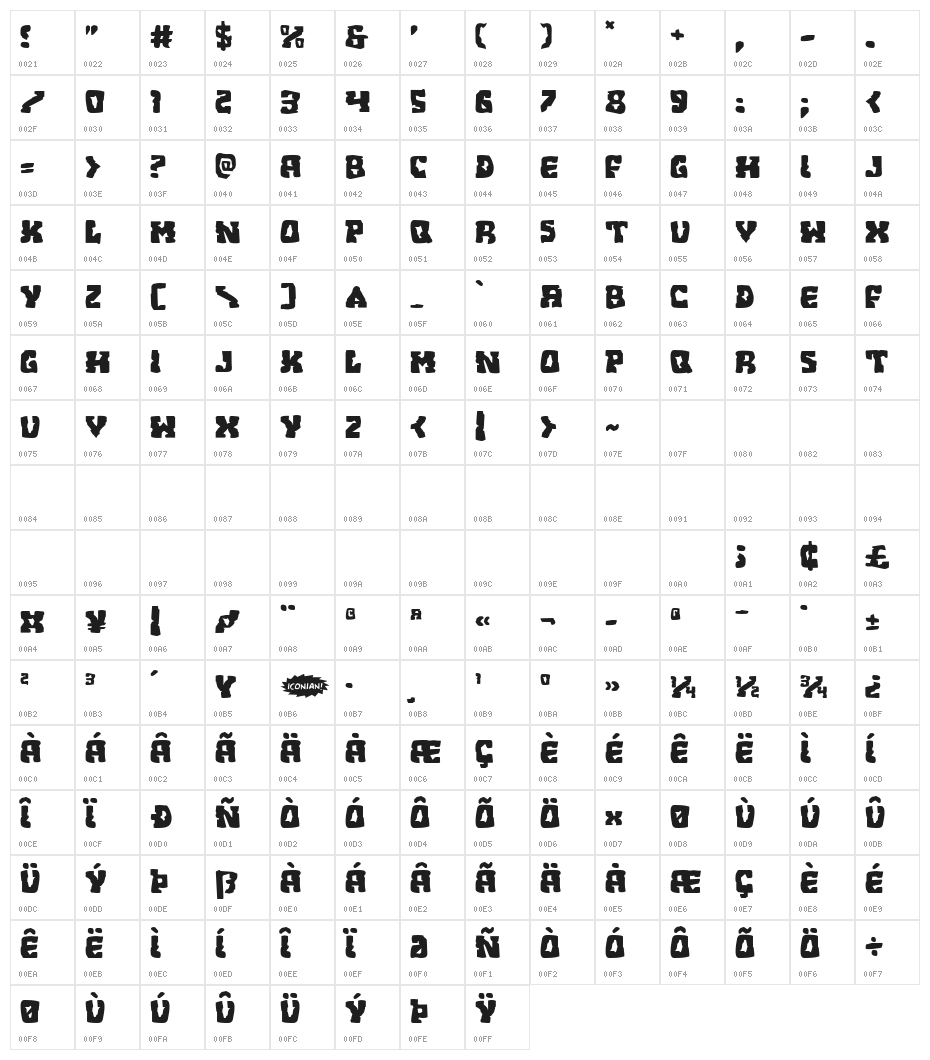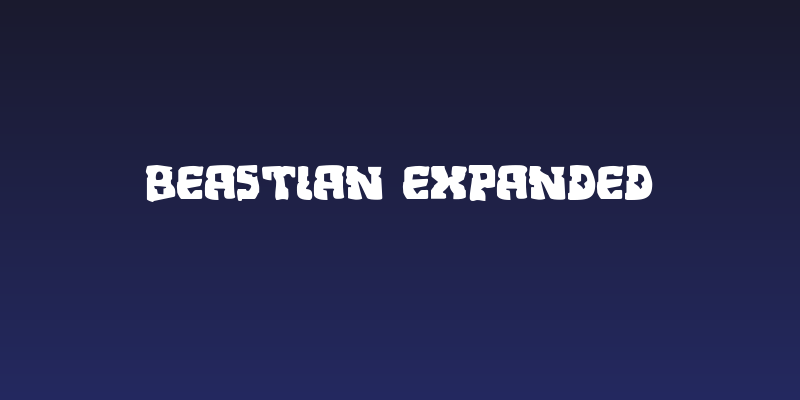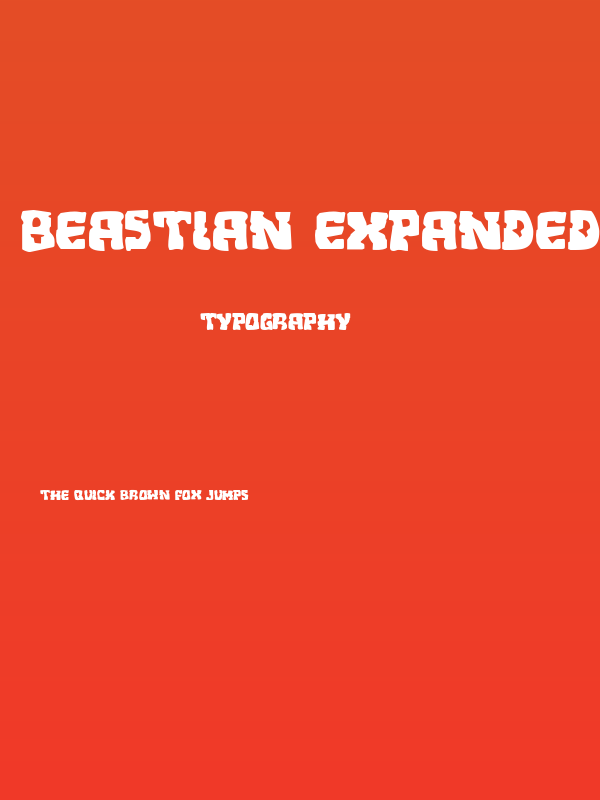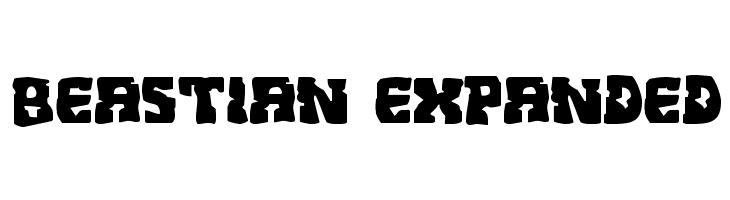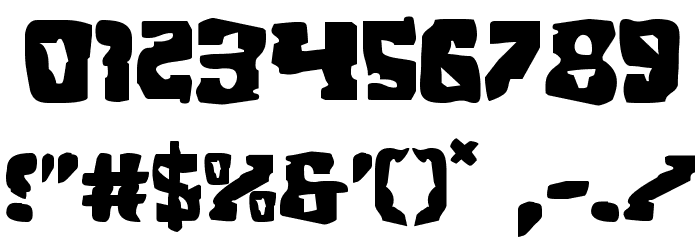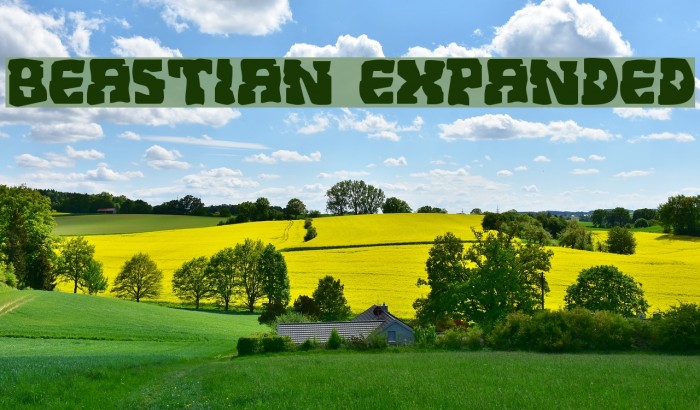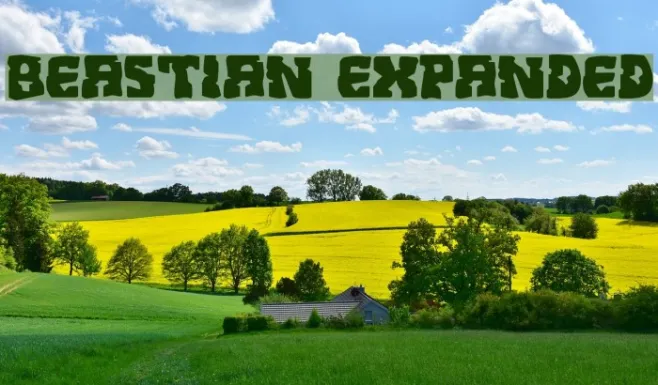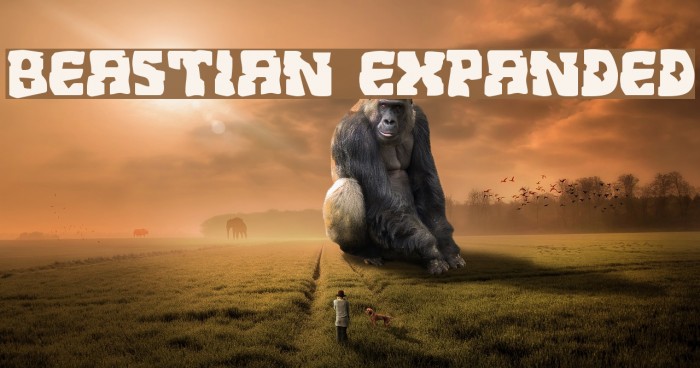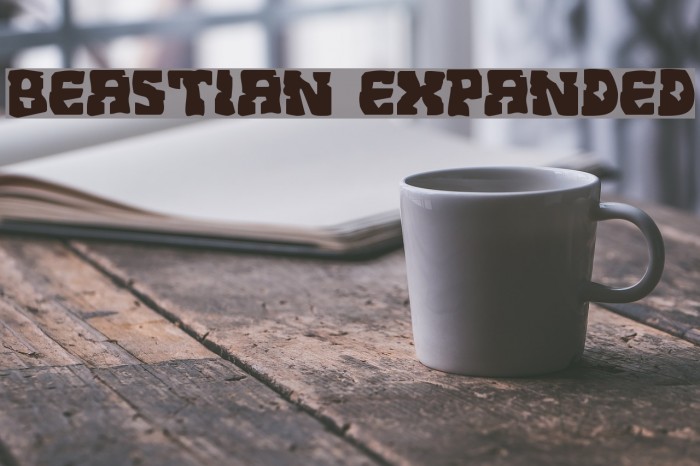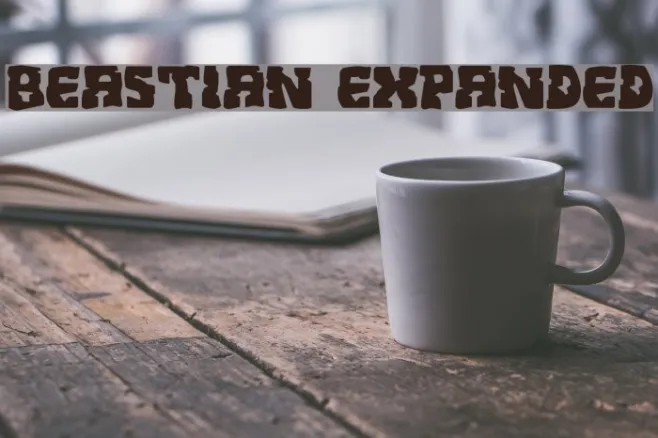
Beastian Expanded Font
Beastian Expanded Description
This font features a bold and dynamic style with a strong presence. The characters are heavily weighted and have a unique, rugged appearance, making them stand out prominently. The edges are slightly irregular, giving it a handcrafted feel that adds to its distinctive look. The uppercase and lowercase letters maintain a consistent thickness, contributing to a cohesive design. The numbers and special characters follow the same bold and robust style, ensuring uniformity across all elements. This font is ideal for projects that require a strong visual impact and a touch of creativity.
| Proposed Projects | Ideal for posters, logos, branding, and any design requiring a bold statement. |